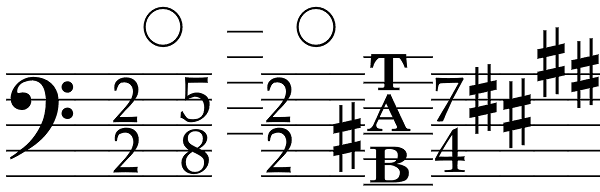
Blank Manuscript
A music font that’s simplicity itself to use, Blank Manuscript allows you to produce sophisticated musical scoresheets even on basic Word Processors - anything from simple plain staves to complex full-page orchestral scores of your own design, to...